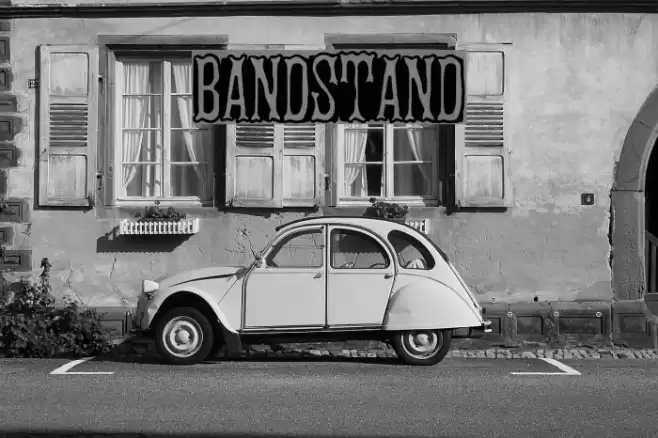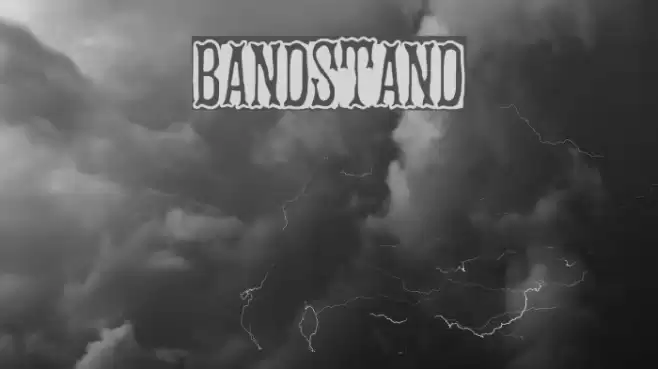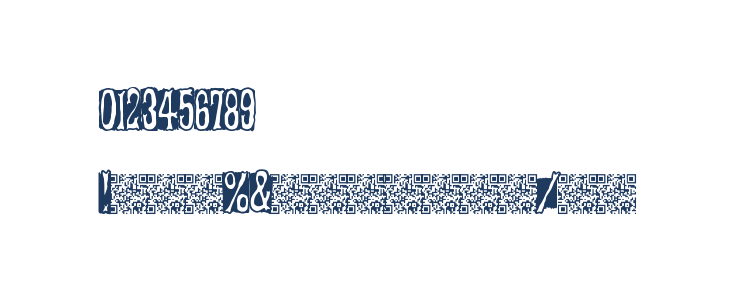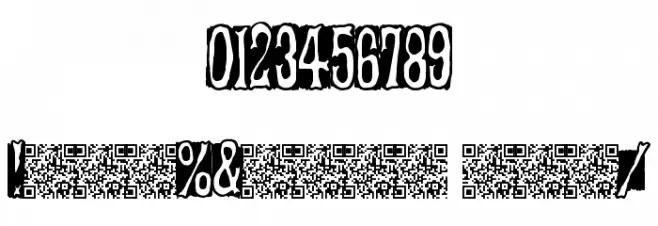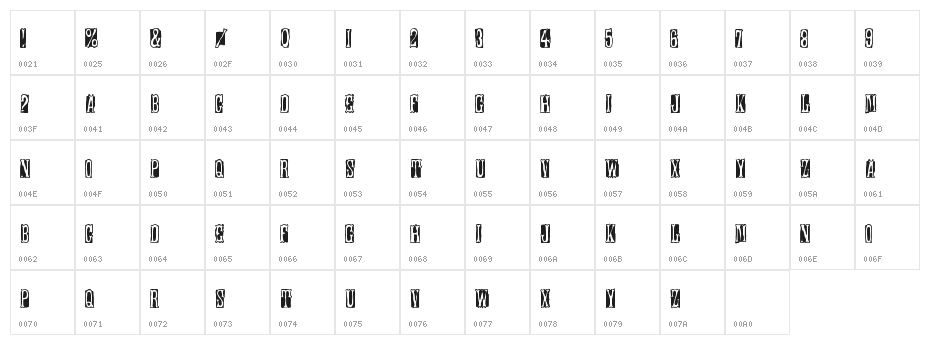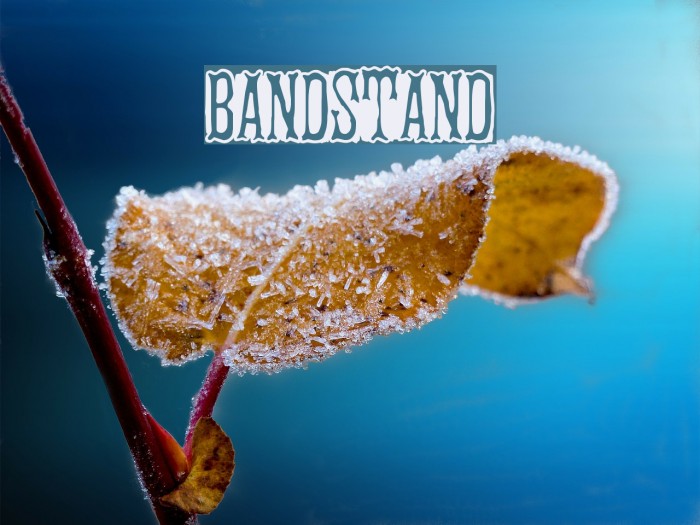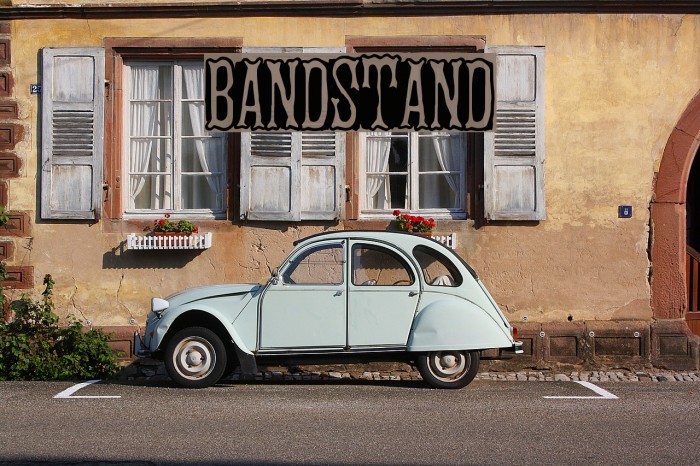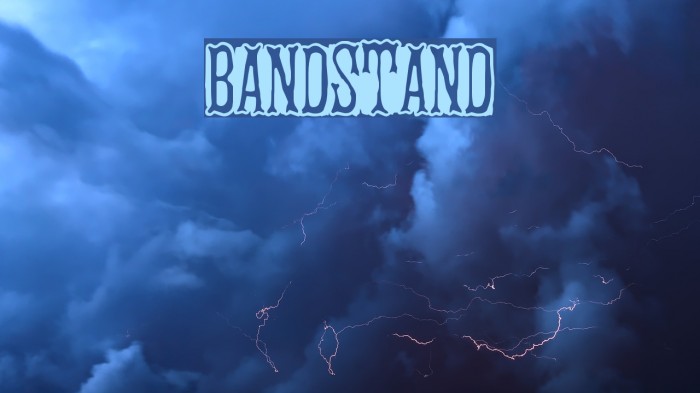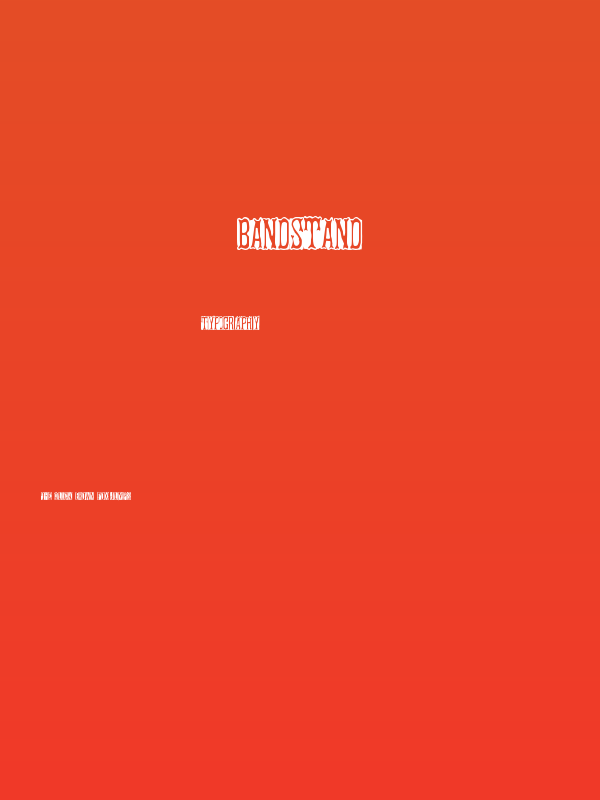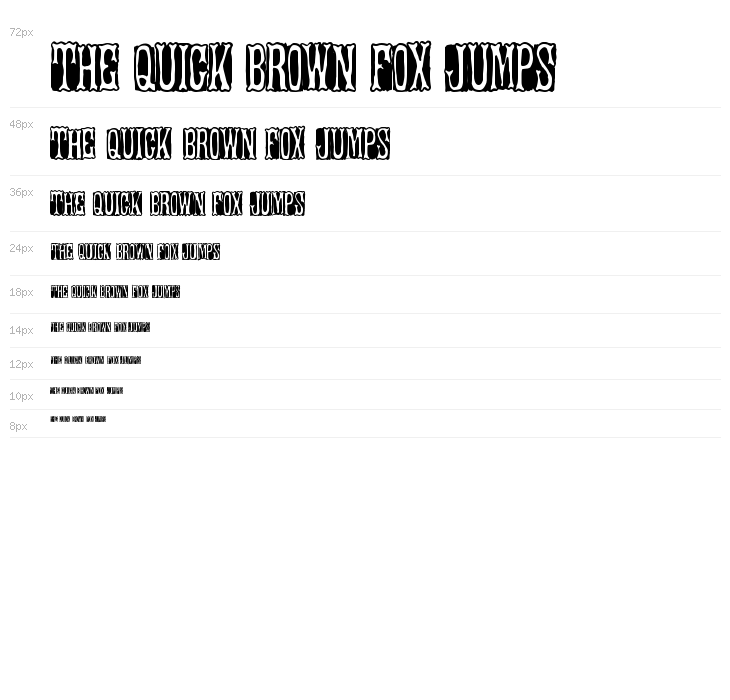
BandStand Font
BandStand Description
This font features a bold and decorative style with a vintage flair. The characters are heavily stylized, with thick strokes and a unique, playful design that resembles a circus or carnival theme. The uppercase letters are prominent and eye-catching, while the lowercase letters maintain the same boldness and decorative elements. Numbers and special characters follow the same design principles, ensuring consistency across all glyphs. The font's distinct appearance makes it suitable for projects that require a touch of nostalgia and whimsy.
A bold, decorative font with a vintage, circus-like style from Uncategorized fonts.
- Proposed Projects: Ideal for posters, event flyers, logos, and any design needing a vintage or playful touch.
- Overall Style: Vintage